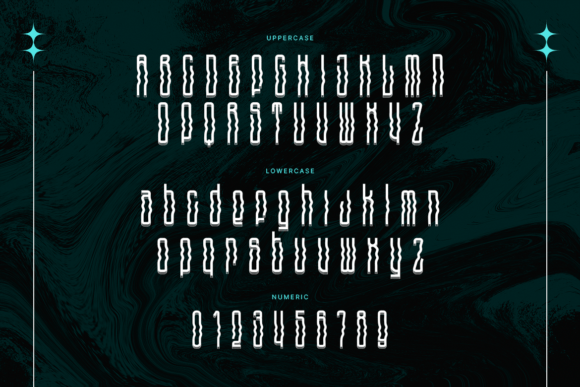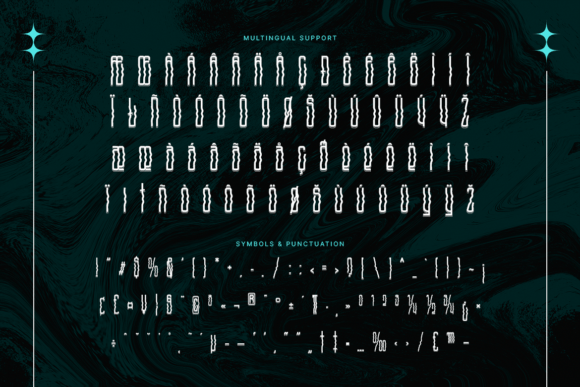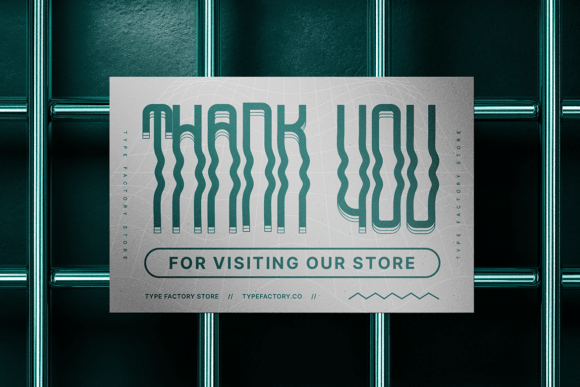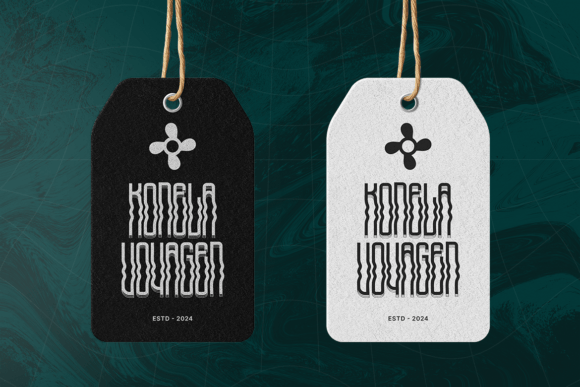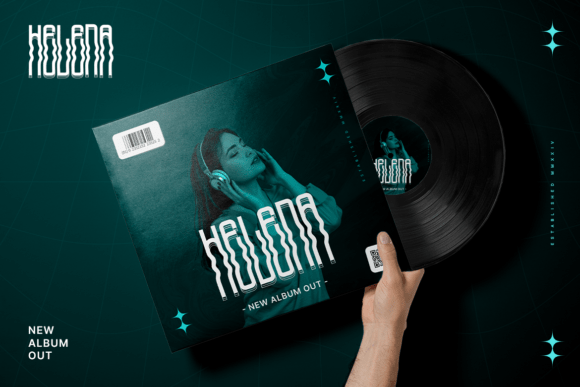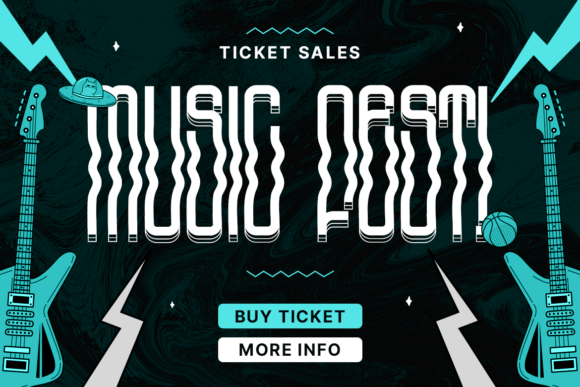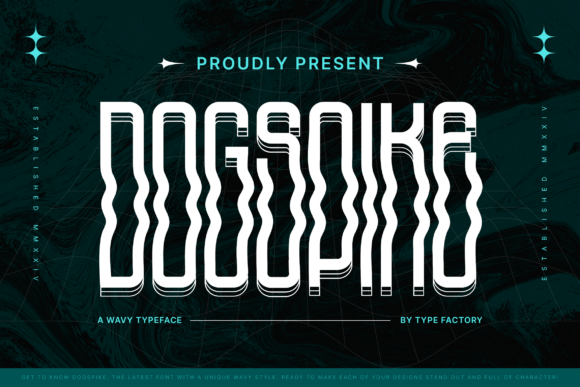
Introducing Dogspike Font: The Ultimate Display Typeface for Bold and Creative Designs
In the world of typography, a new font has emerged that’s making waves – literally! Dogspike is a wavy distorted display typeface that’s taking the design community by storm. With its elongated letterforms, fluid vertical curves, and unique wave-like structure, Dogspike is the perfect choice for designers and crafters looking to add a touch of futurism and artistic flair to their projects.
What Makes Dogspike Font So Unique?
Dogspike’s distinctive shape is what sets it apart from other typefaces. Its characters feature a wave-like structure that creates a dynamic and experimental visual rhythm. This rhythmic quality makes Dogspike ideal for bold display typography, adding a touch of energy and movement to any design. Whether you’re working on a music poster, album artwork, or branding project, Dogspike’s unique personality shines through.
The Design Behind Dogspike
Dogspike was designed with a modern approach in mind. Its elongated letterforms and fluid vertical curves give it a sense of fluidity and dynamism. The wave-like structure of the characters adds a touch of experimentation and creativity, making Dogspike perfect for designers who want to push the boundaries of typography. The font’s futuristic and artistic personality makes it an excellent choice for projects that require a bold and unconventional visual style.
Perfect for Creative Graphic Layouts
Dogspike works exceptionally well for music posters, album artwork, branding, and creative graphic layouts that require an unconventional visual style. Its expressive distortion and modern design approach make it an excellent choice for experimental titles, event graphics, editorial headlines, and contemporary visual projects. Whether you’re designing a poster for a music festival or creating a bold headline for a magazine, Dogspike is the perfect font to make your design stand out.
Key Features of Dogspike Font
- Wavy distorted design: Dogspike’s unique wave-like structure creates a dynamic and experimental visual rhythm.
- Elongated letterforms: The font’s elongated letterforms add a touch of fluidity and dynamism to any design.
- Fluid vertical curves: Dogspike’s fluid vertical curves give it a sense of movement and energy.
- Futuristic and artistic personality: Dogspike’s distinctive shape gives it a futuristic and artistic personality, making it perfect for bold display typography.
How to Use Dogspike Font in Your Designs
Dogspike is an incredibly versatile font that can be used in a variety of design projects. Here are a few ideas to get you started:
- Music posters: Use Dogspike to create bold and eye-catching posters for music festivals, concerts, or album releases.
- Album artwork: Add a touch of futurism and artistic flair to your album artwork with Dogspike.
- Branding: Use Dogspike to create bold and memorable brand identities that stand out from the crowd.
- Editorial headlines: Add a touch of experimentation and creativity to your editorial headlines with Dogspike.
Dogspike font is a game-changer for designers and crafters looking to add a touch of futurism and artistic flair to their projects. Its unique wave-like structure, elongated letterforms, and fluid vertical curves make it perfect for bold display typography. With its expressive distortion and modern design approach, Dogspike is ideal for experimental titles, event graphics, editorial headlines, and contemporary visual projects. So why settle for ordinary typography when you can make a statement with Dogspike?